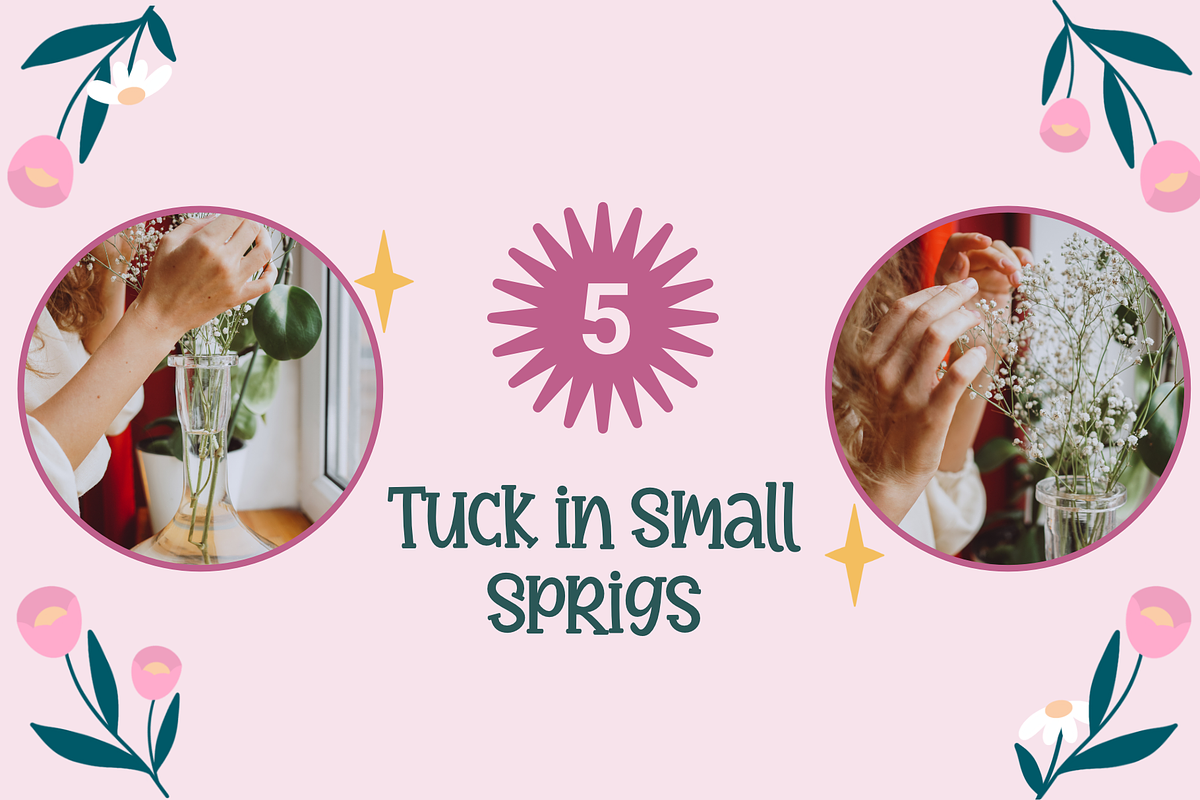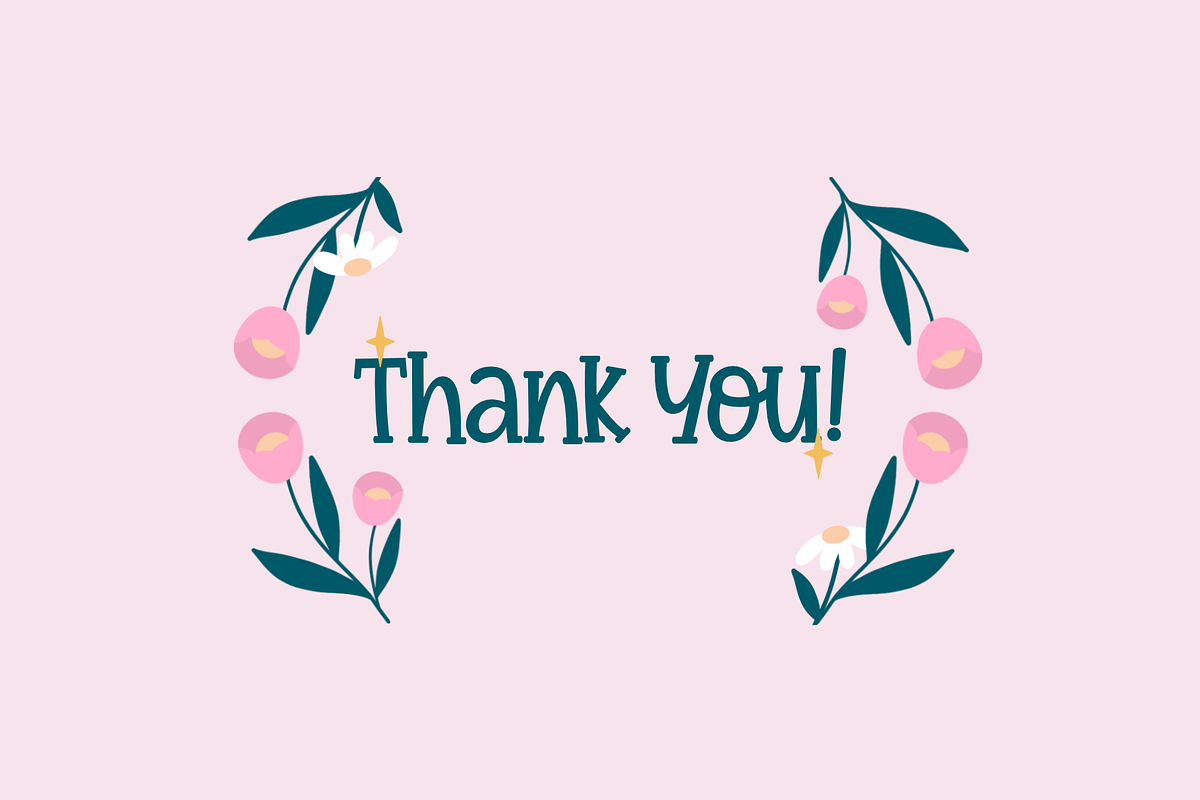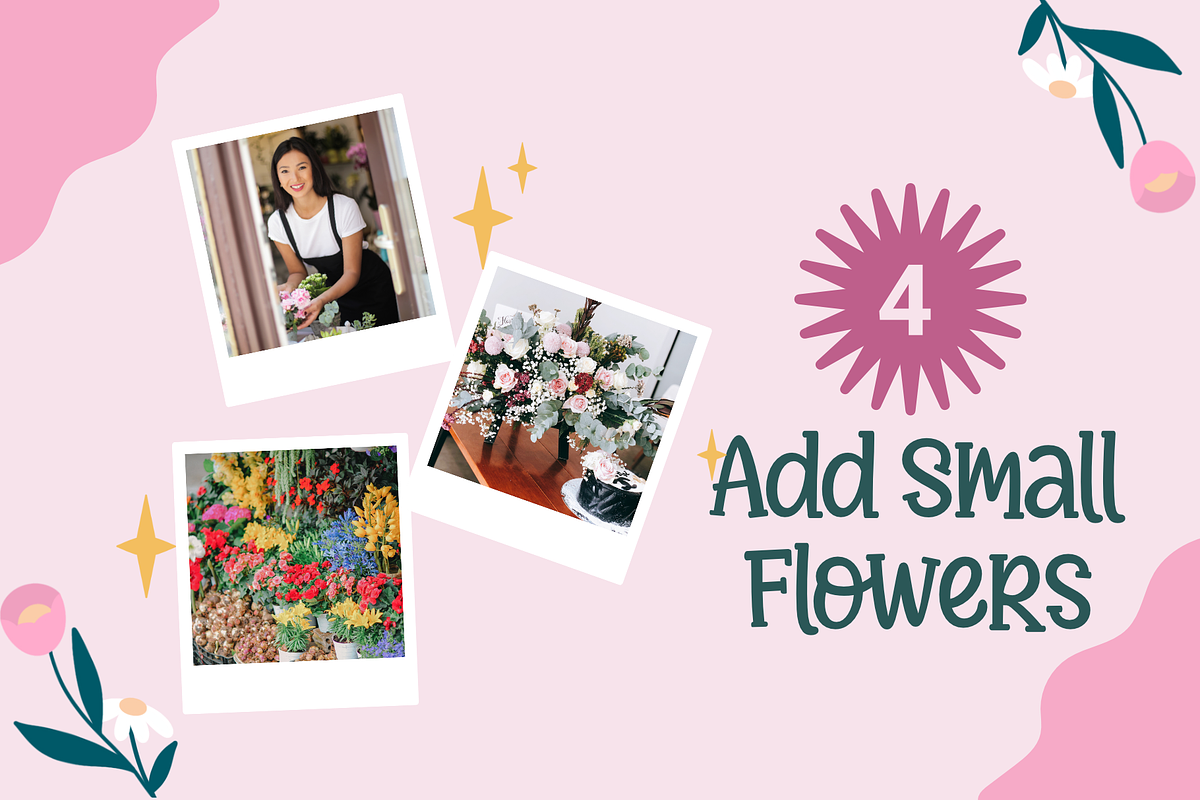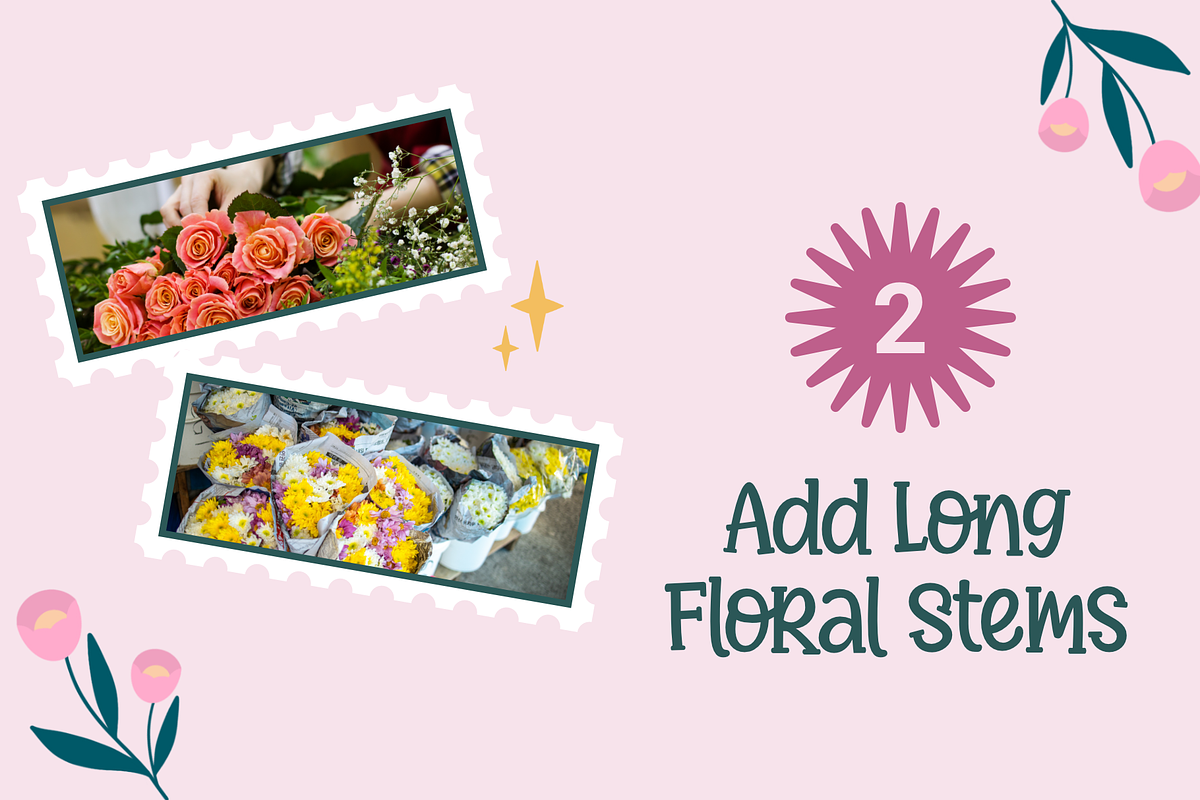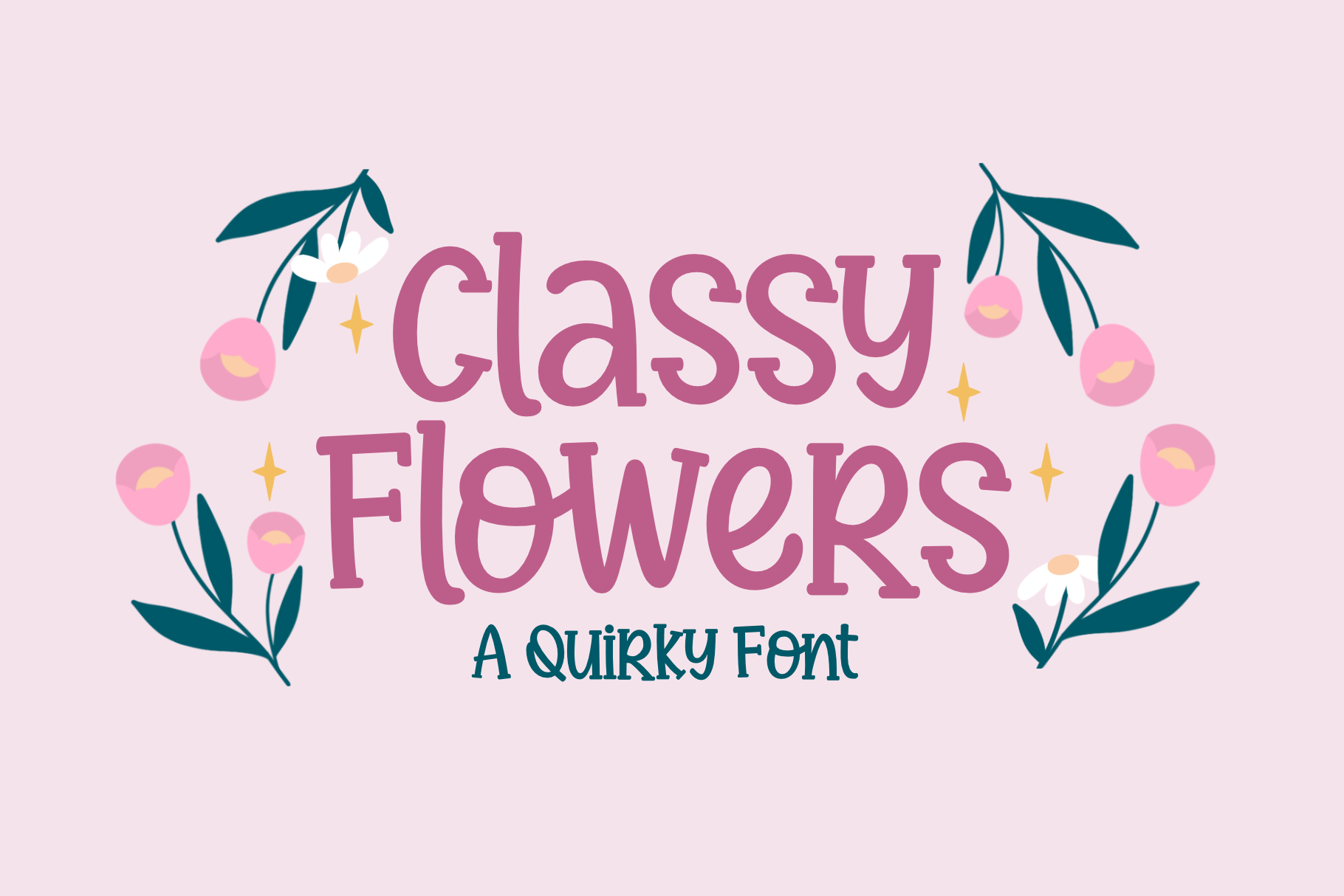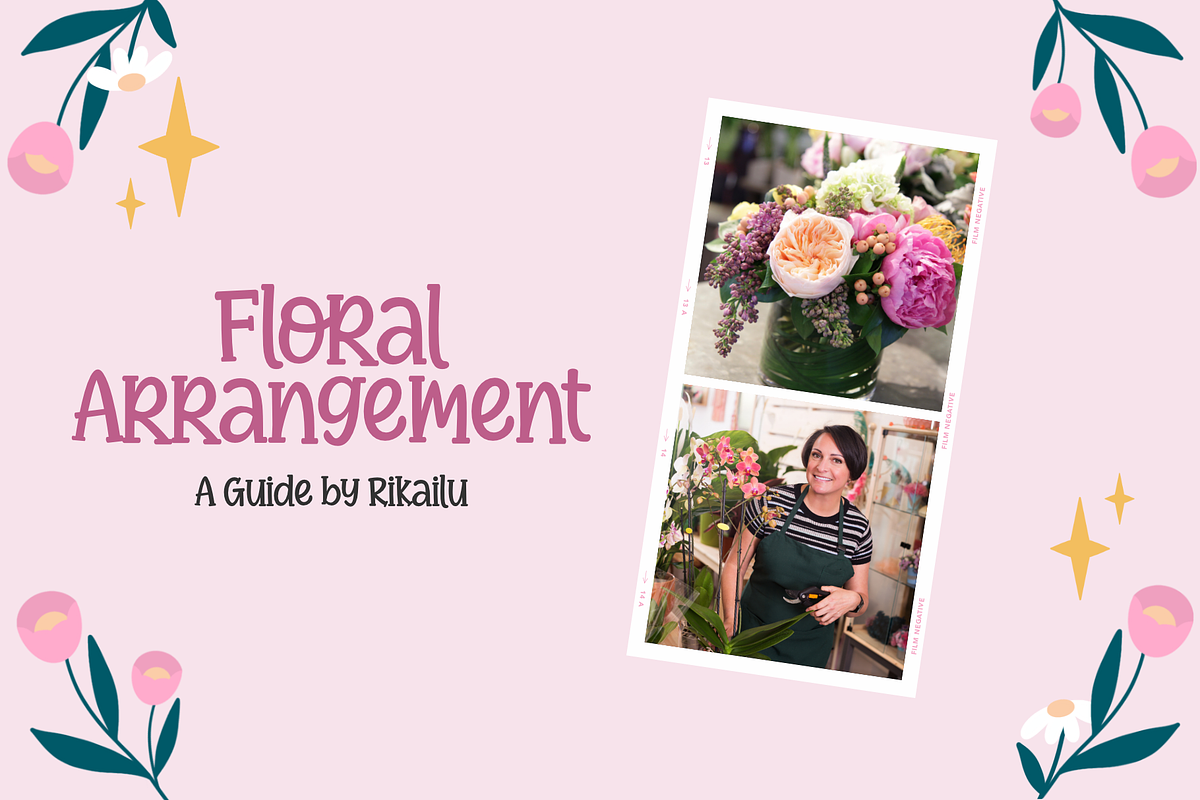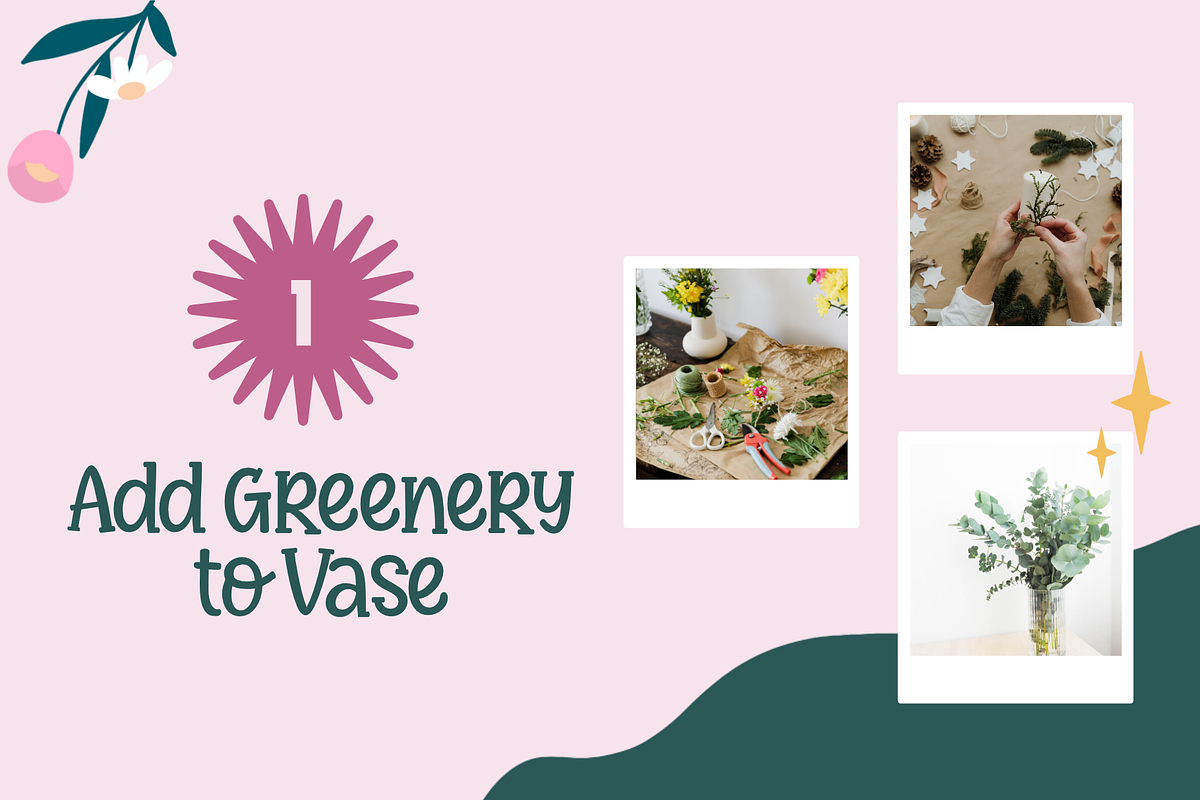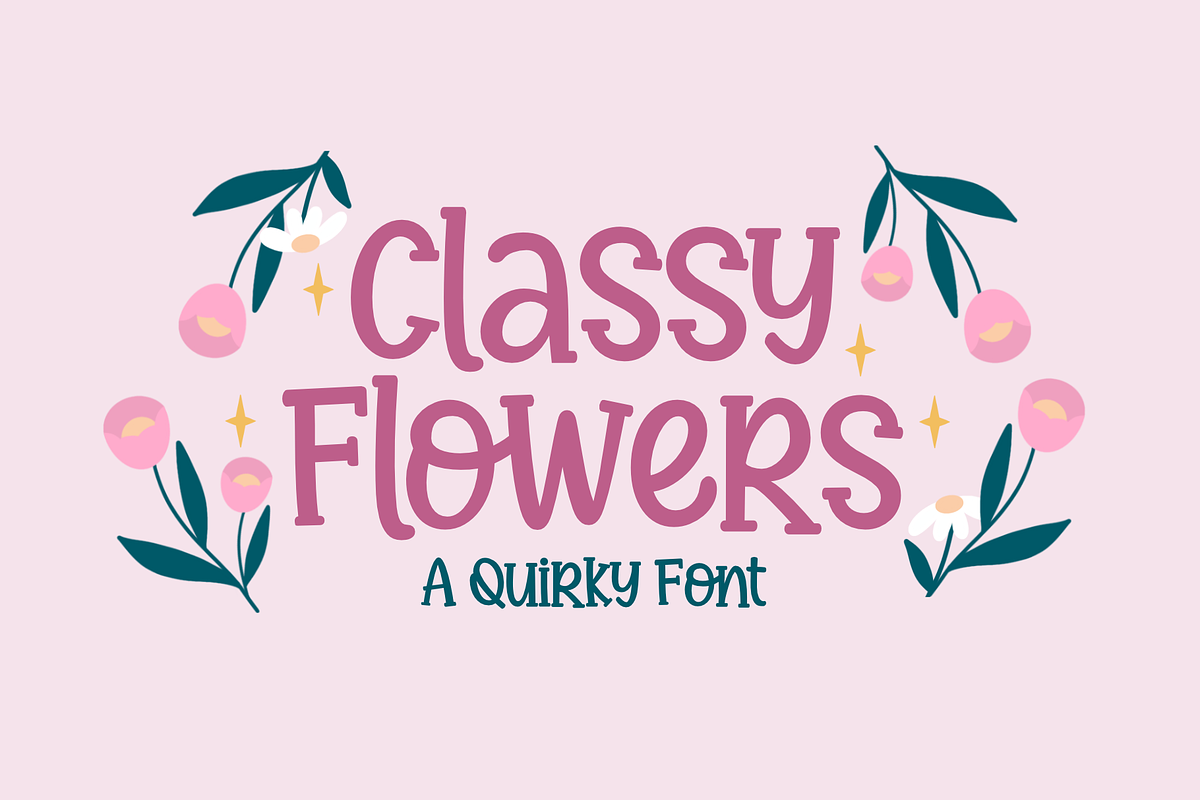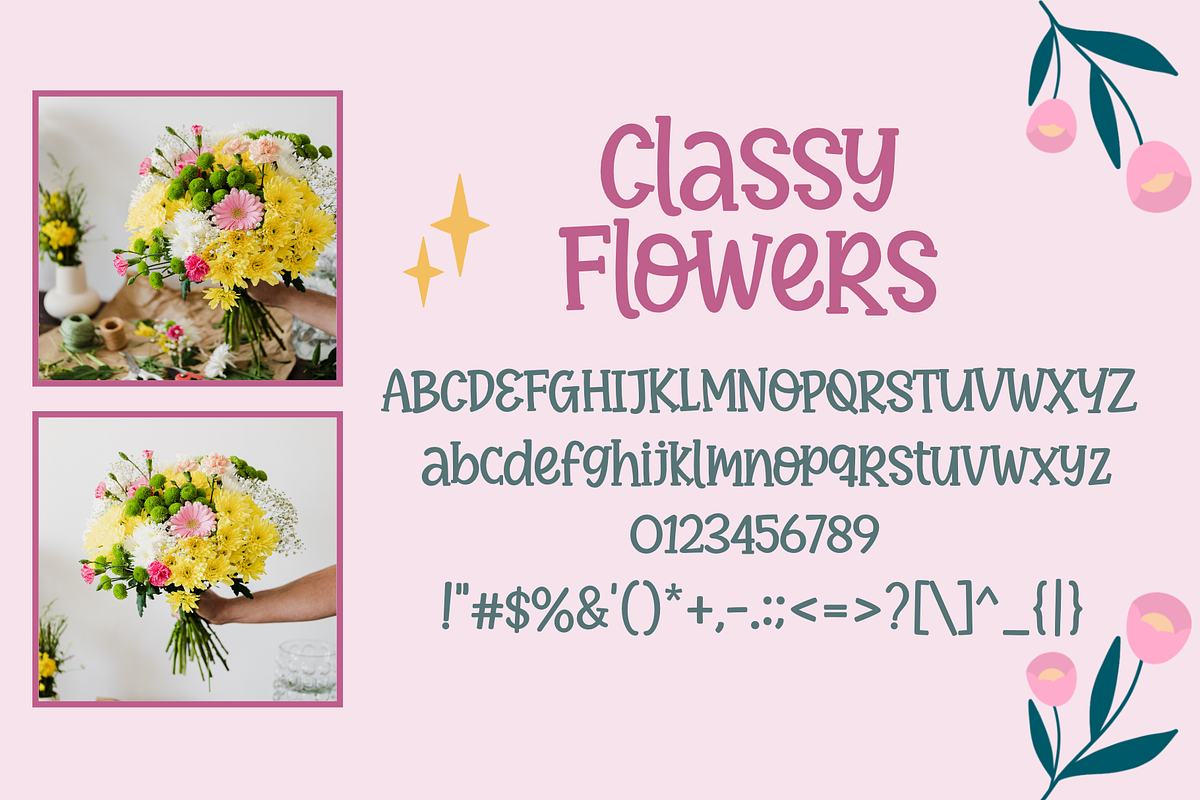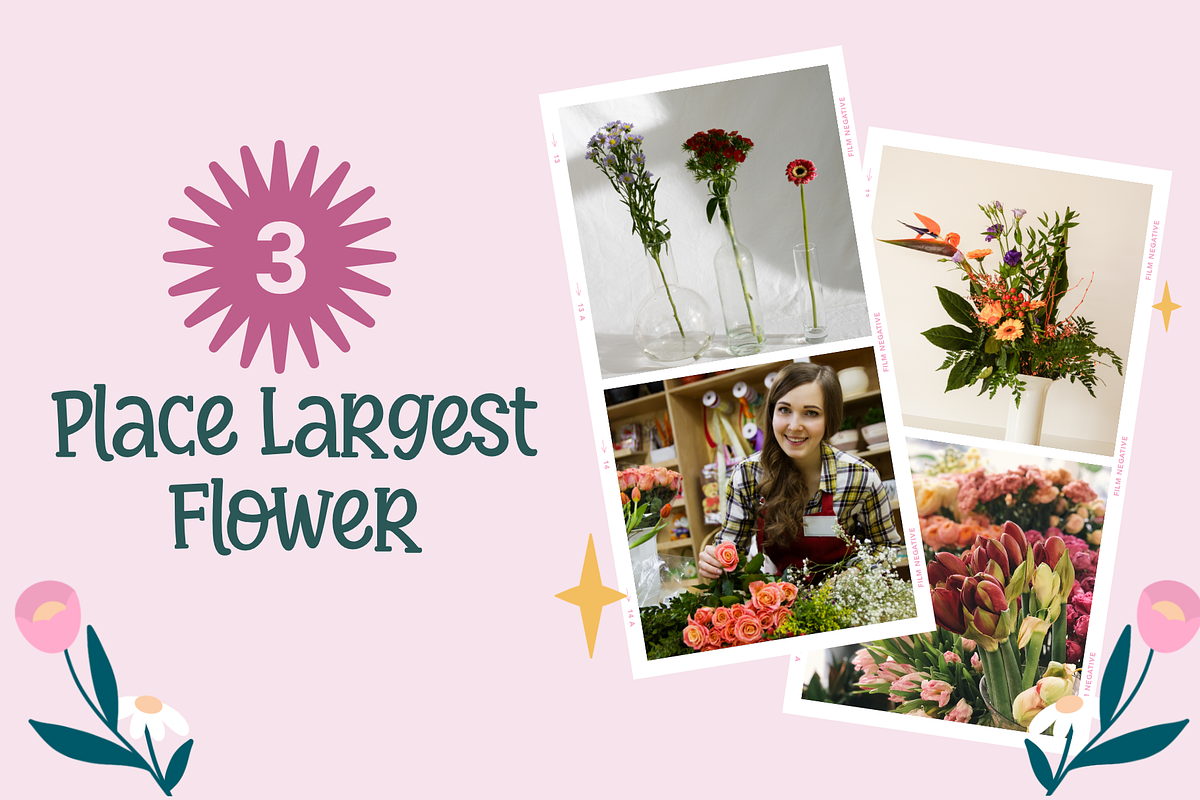
Classy Flowers - a Quirky Font
Classy Flowers is a cute, playful and quirky serif font. Whether you are using it for cartoon-related designs, children games, quotes, titles, brand names, book covers, posters, or just any creation that requires a touch of joy, this font is a great choice.